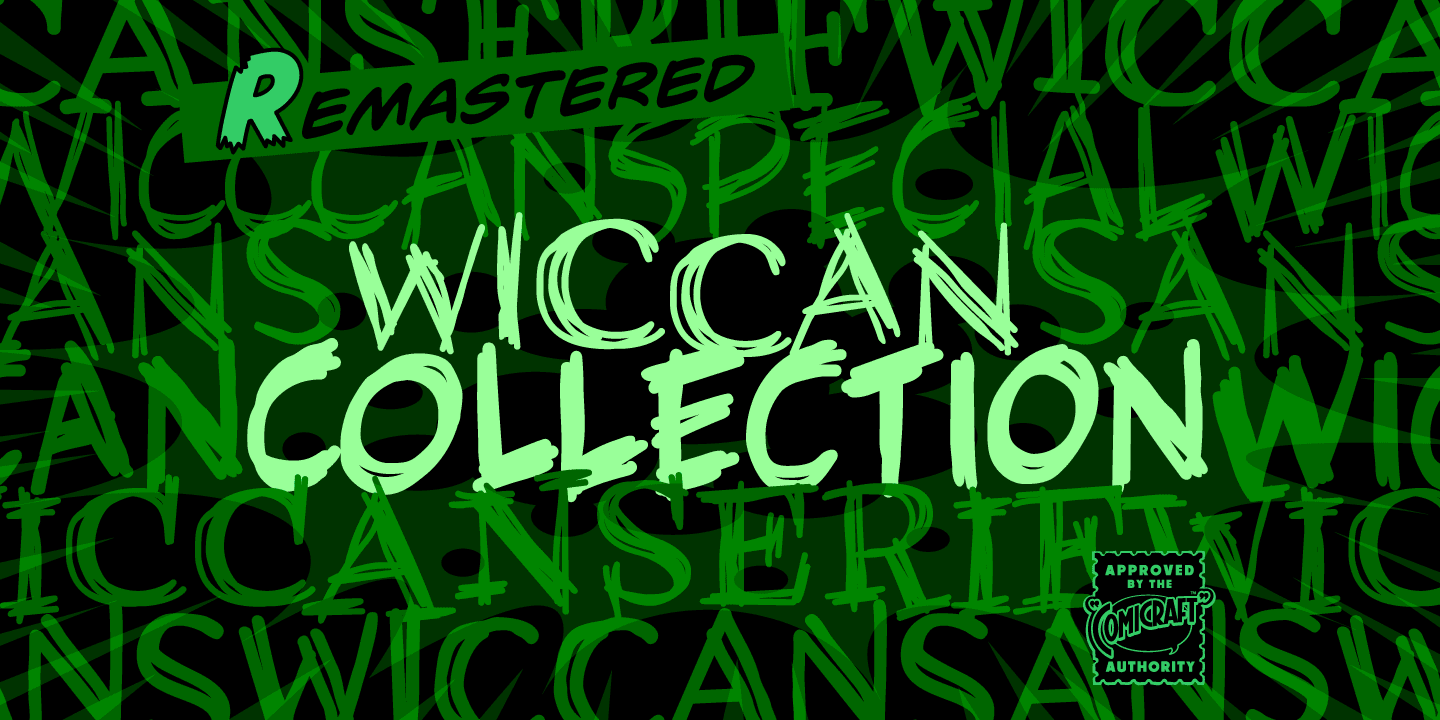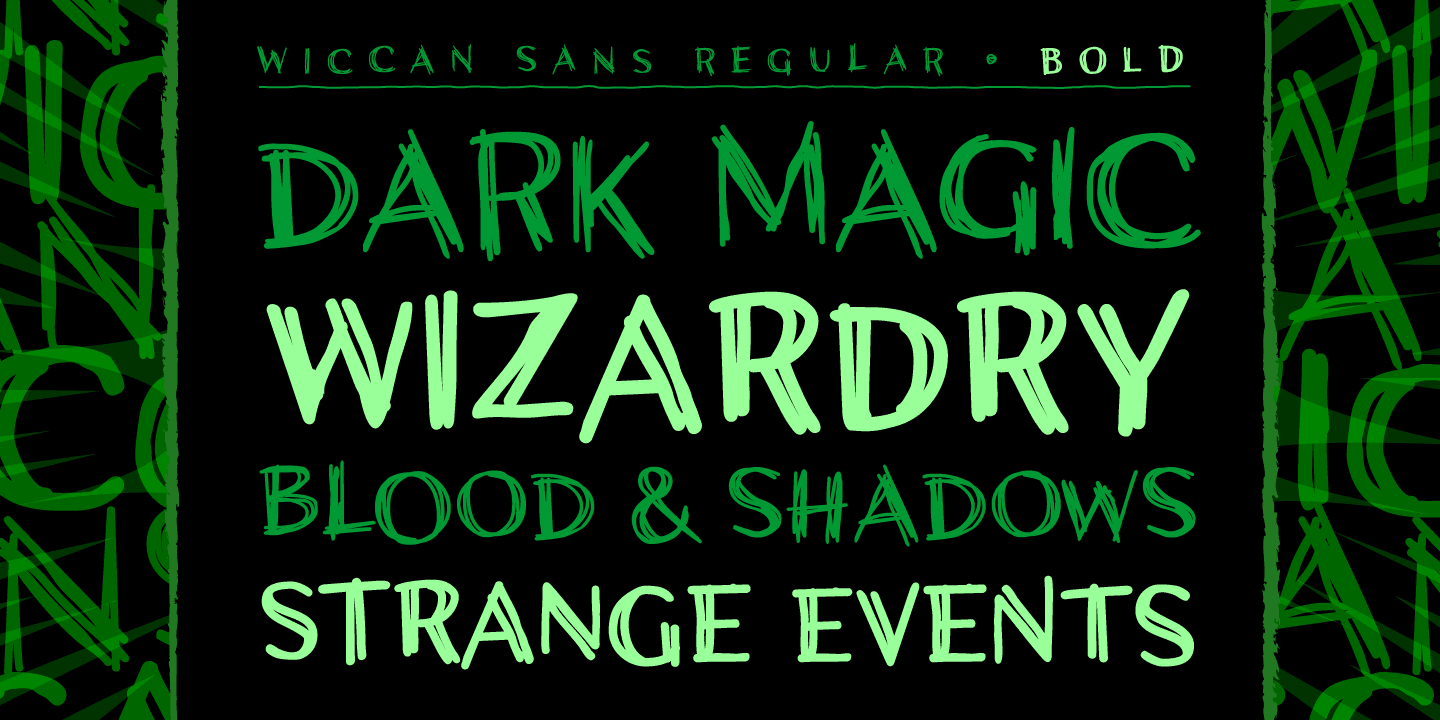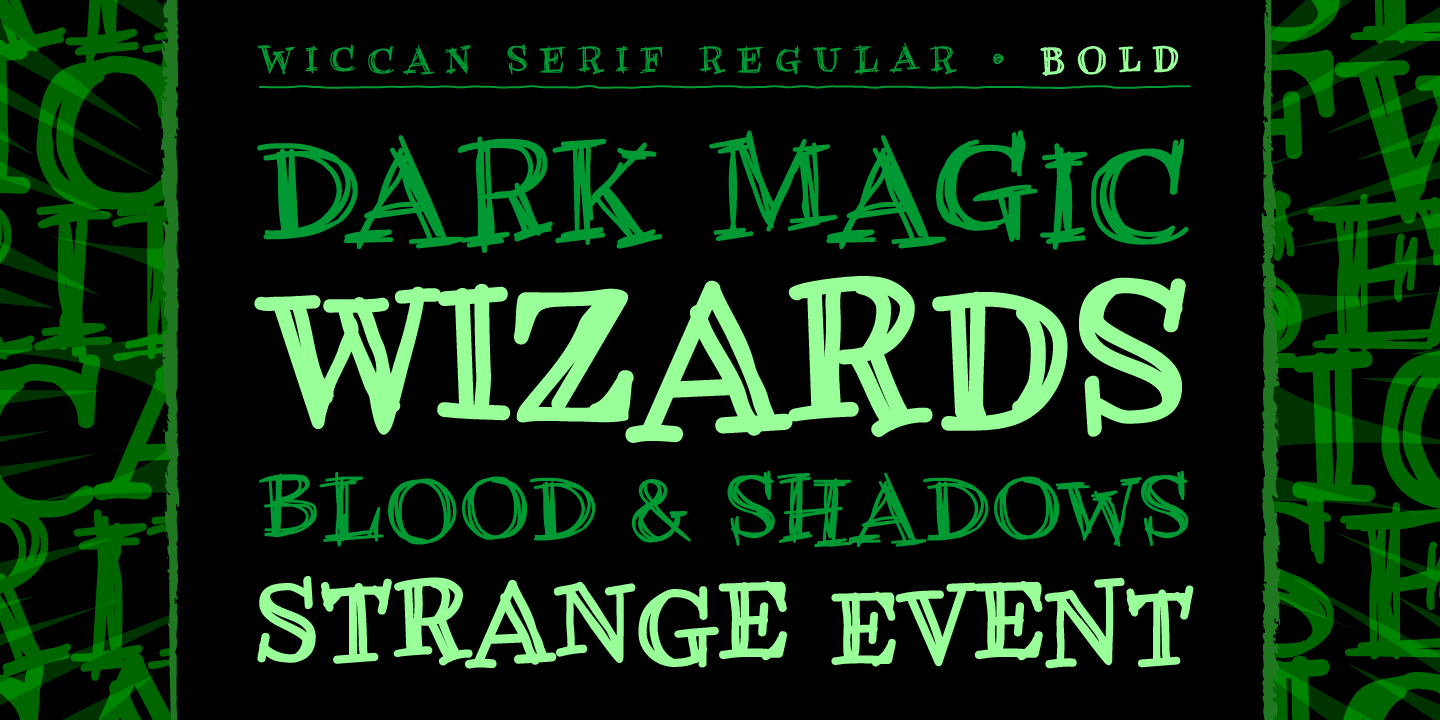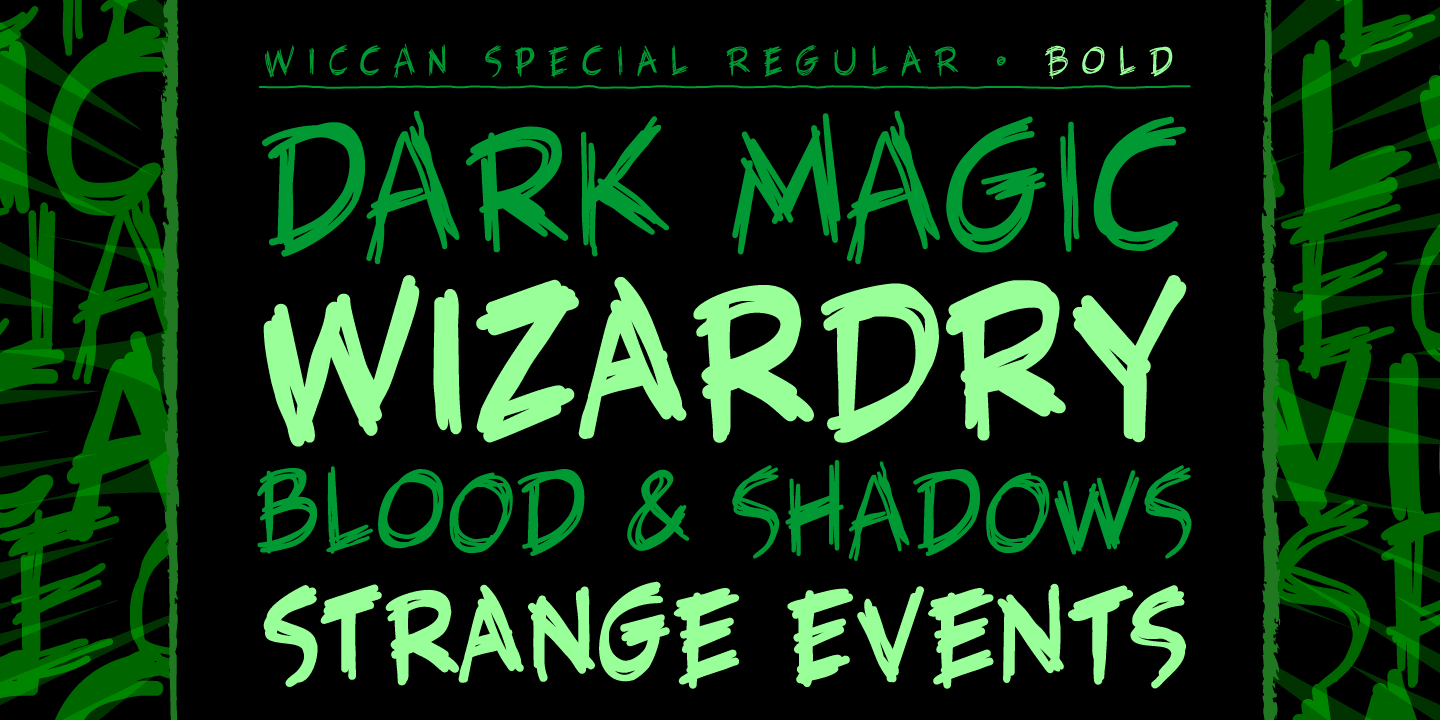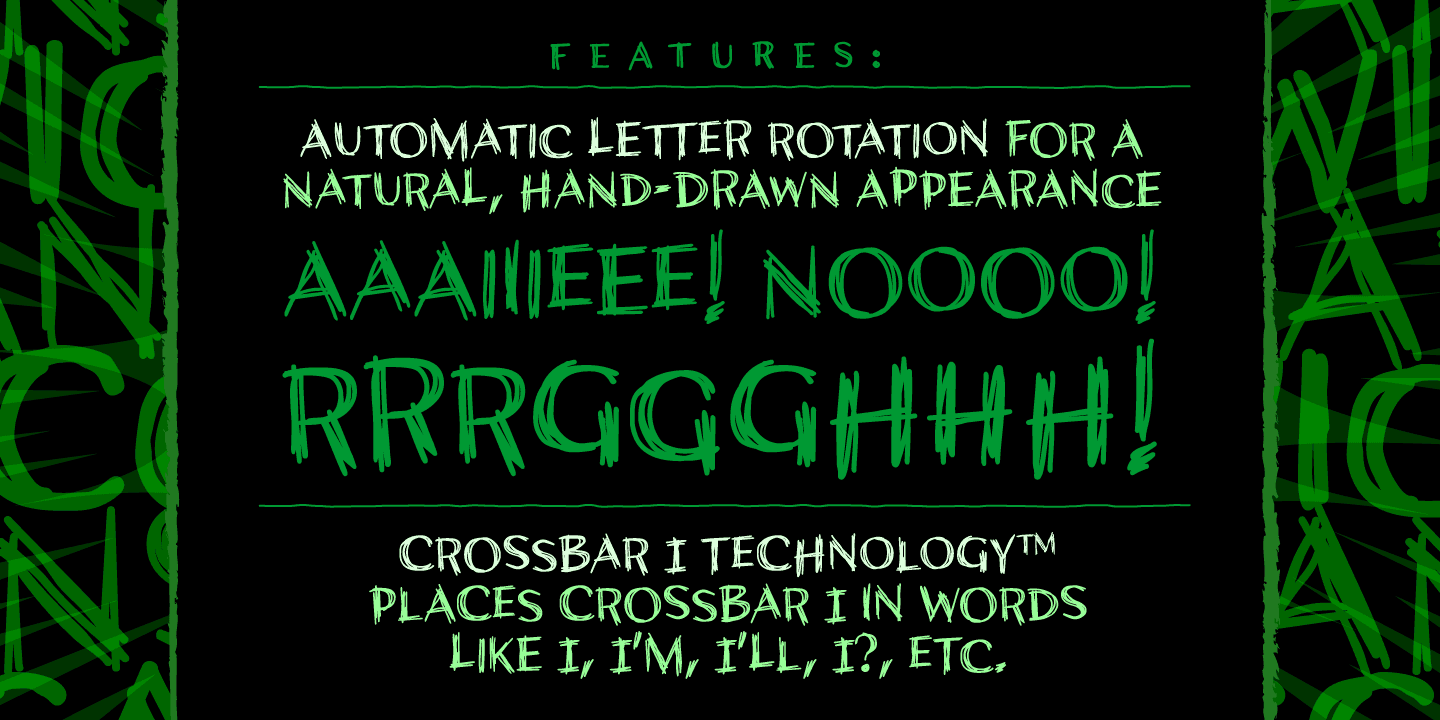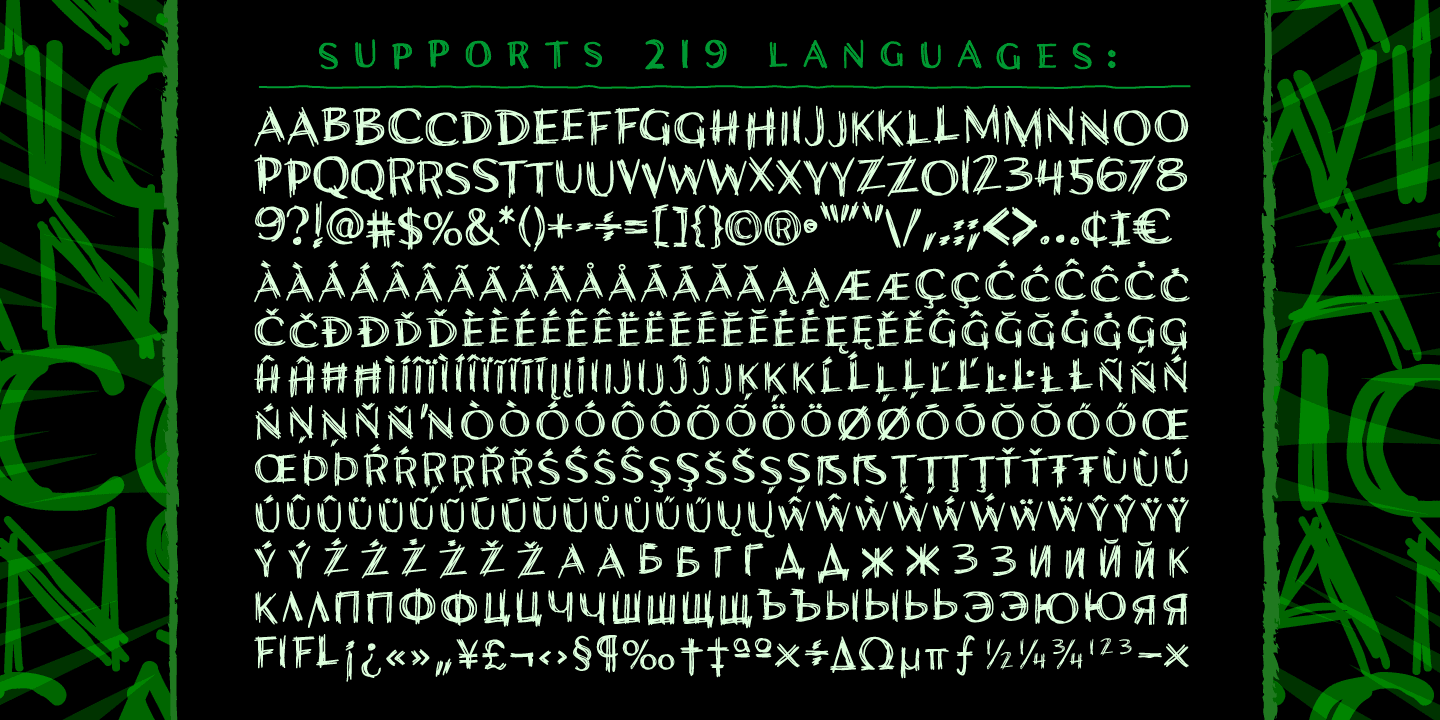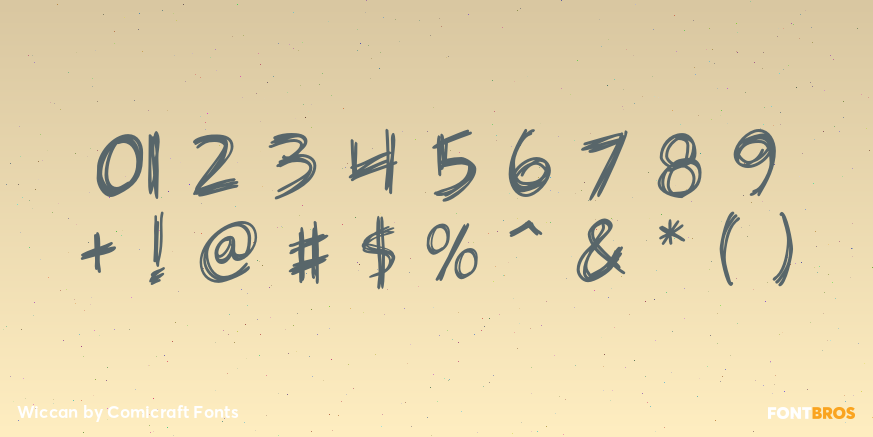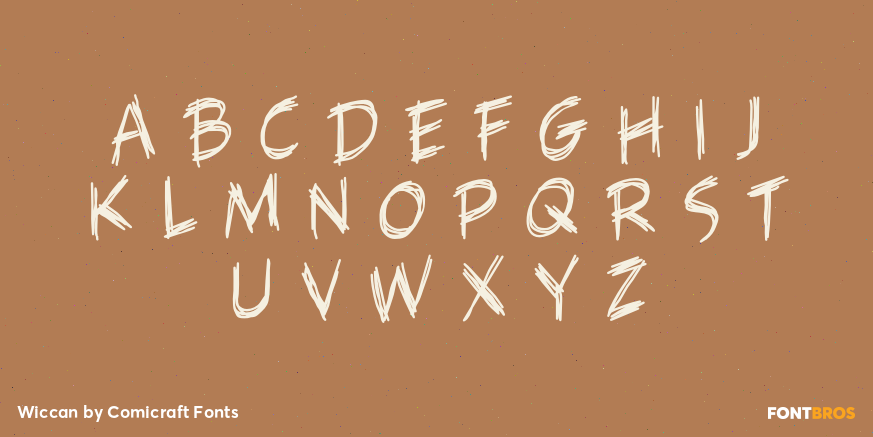
Wiccan
Font Family by Comicraft Fonts
In 1996, three student letterers went into the forest looking for the mysterious fonts used to letter Spawn: Blood & Shadows. They never returned. A year later, their fonts were found.